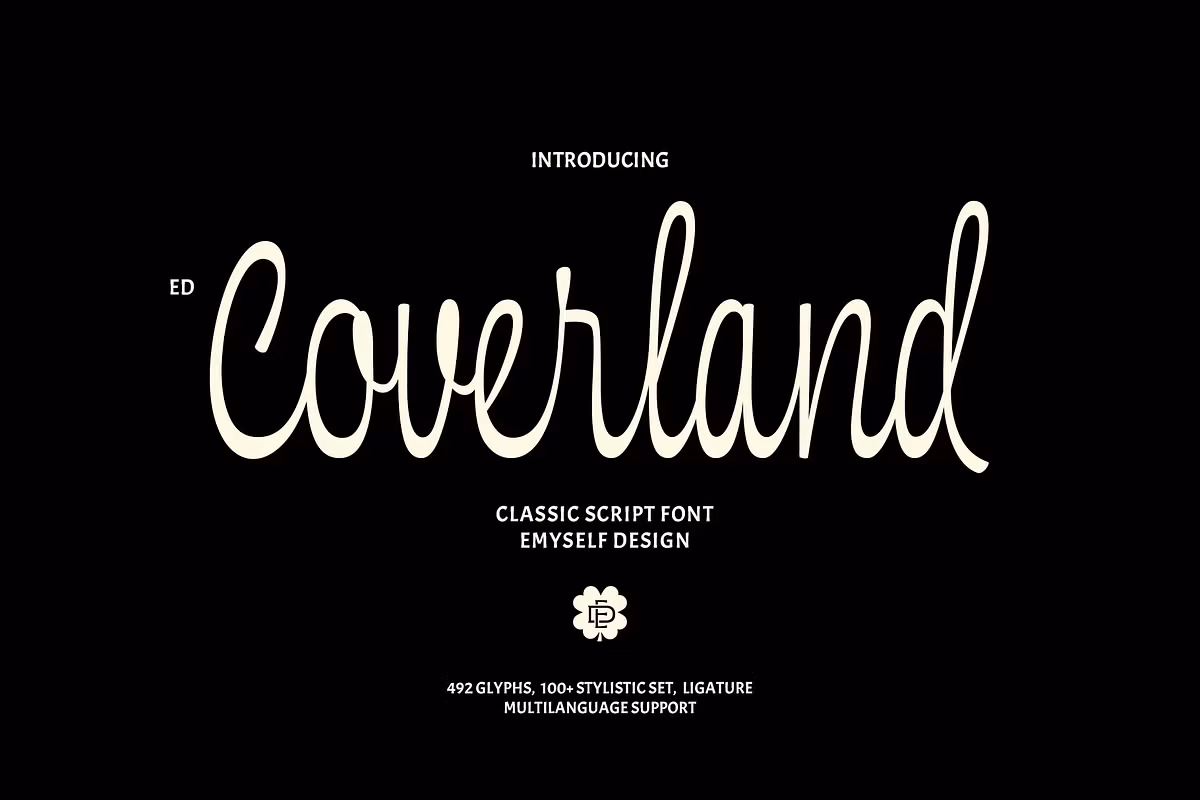
ED Coverland - Classic Script Font Free Download
ED Coverland - Classic Script Font Free Download is a refined and elegant typeface designed to add a timeless, classic touch to your designs. With its flowing, cursive strokes and sophisticated style, this font is perfect for creating high-end branding, wedding invitations, luxury packaging, and editorial designs. Its graceful and readable letterforms make it ideal for projects that need a touch of elegance and tradition. Whether you're designing a logo, a personalized greeting card, or premium promotional materials, ED Coverland - Classic Script Font Free Download gives you the opportunity to test its elegant style in personal projects before purchasing a commercial license. Elevate your designs with the timeless beauty and charm of this classic script font.